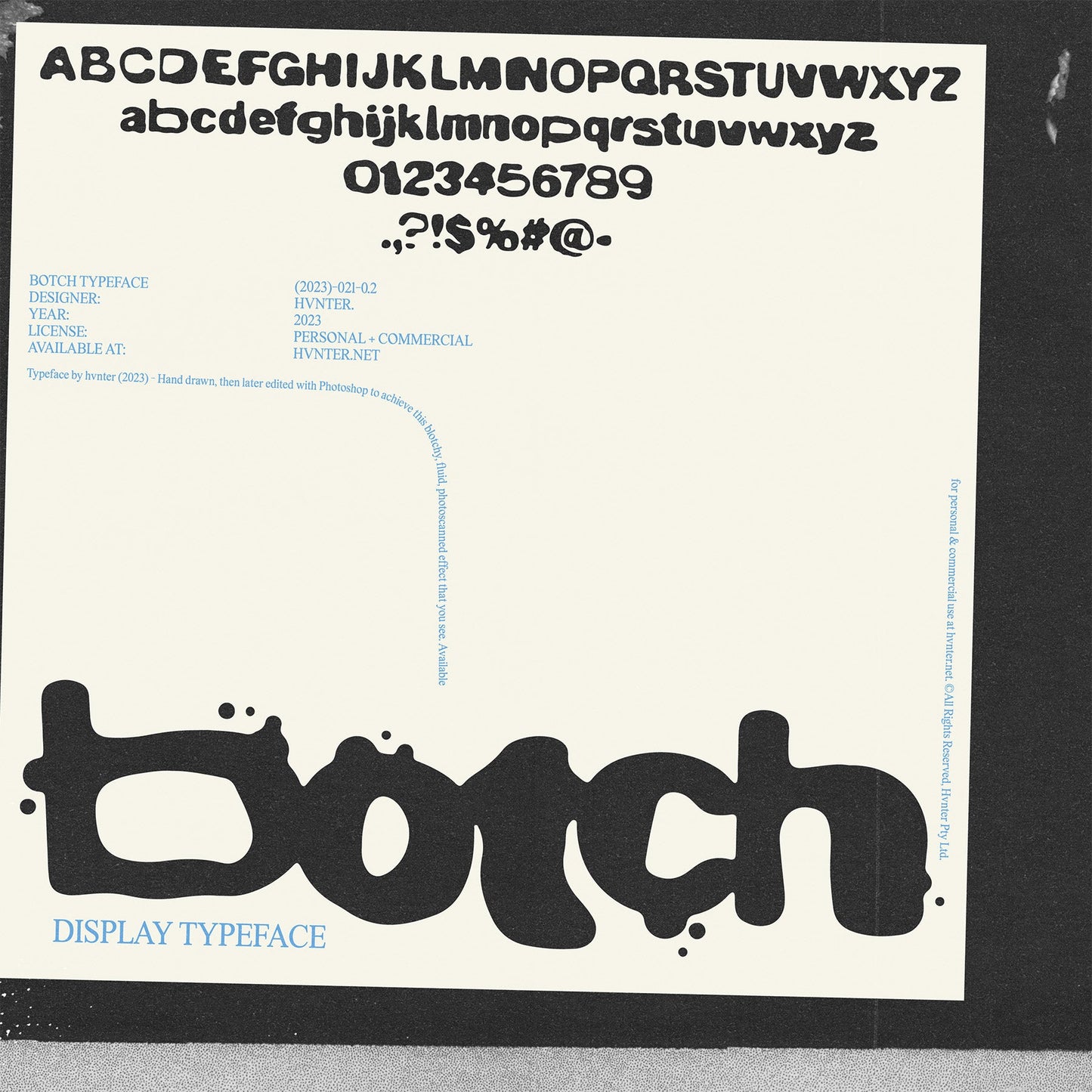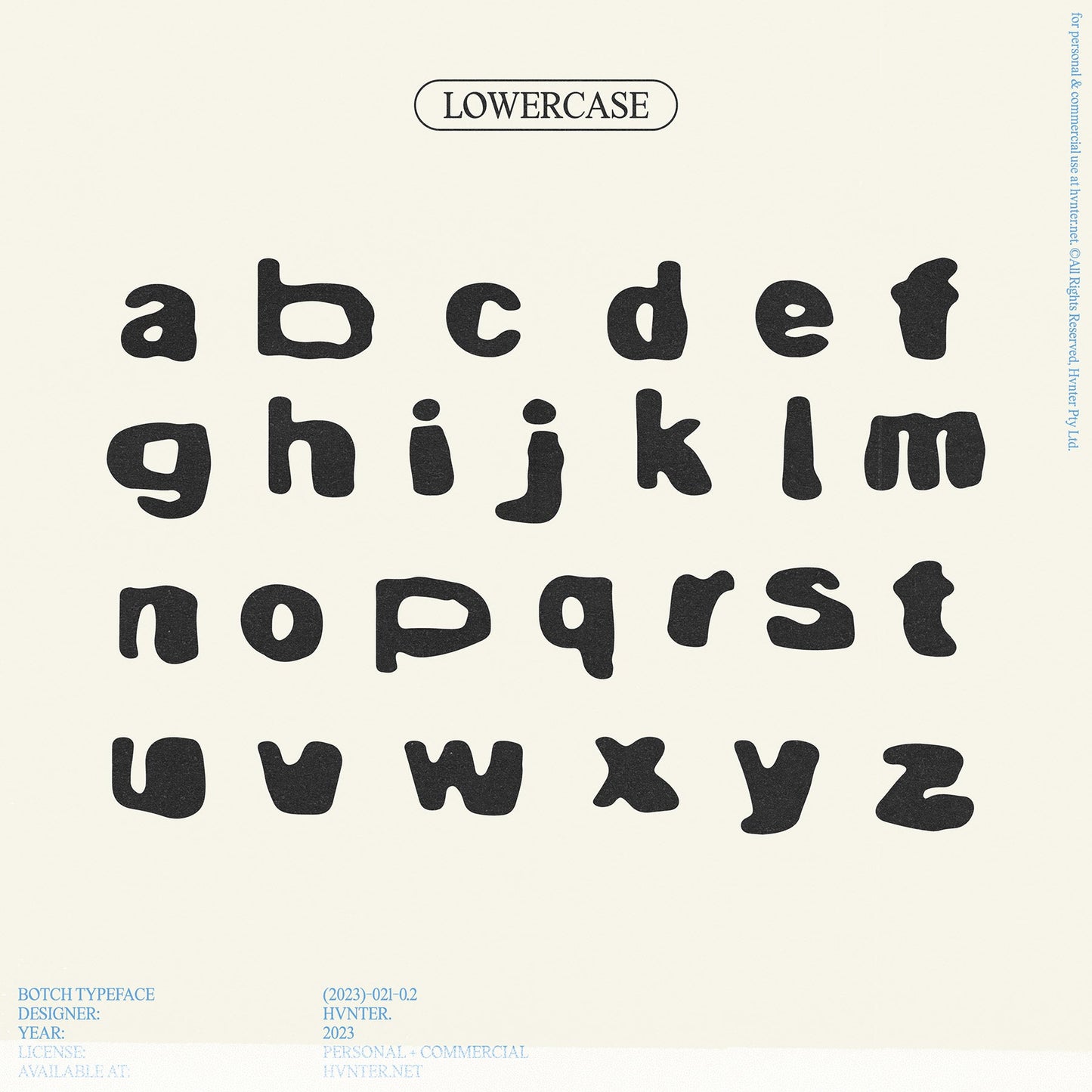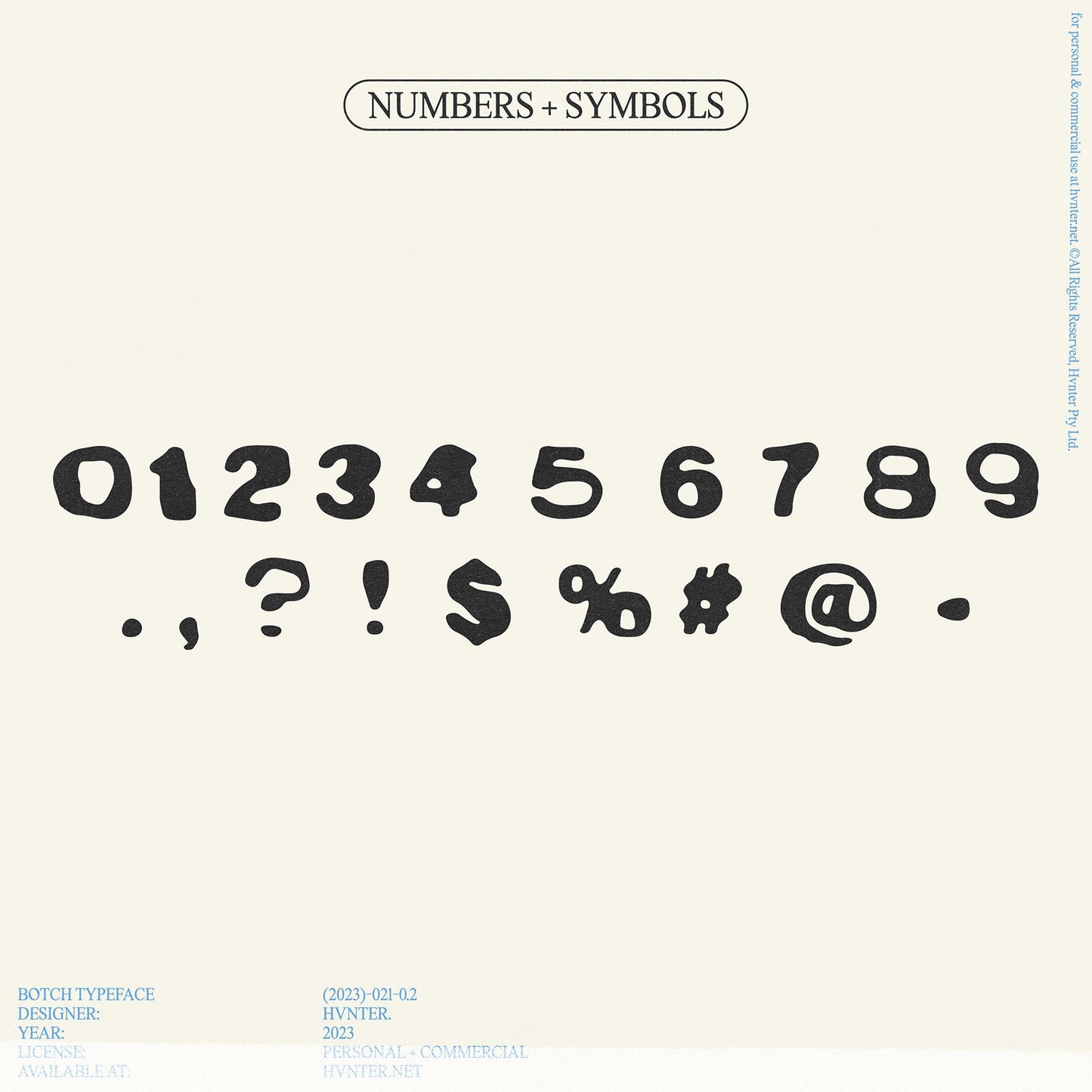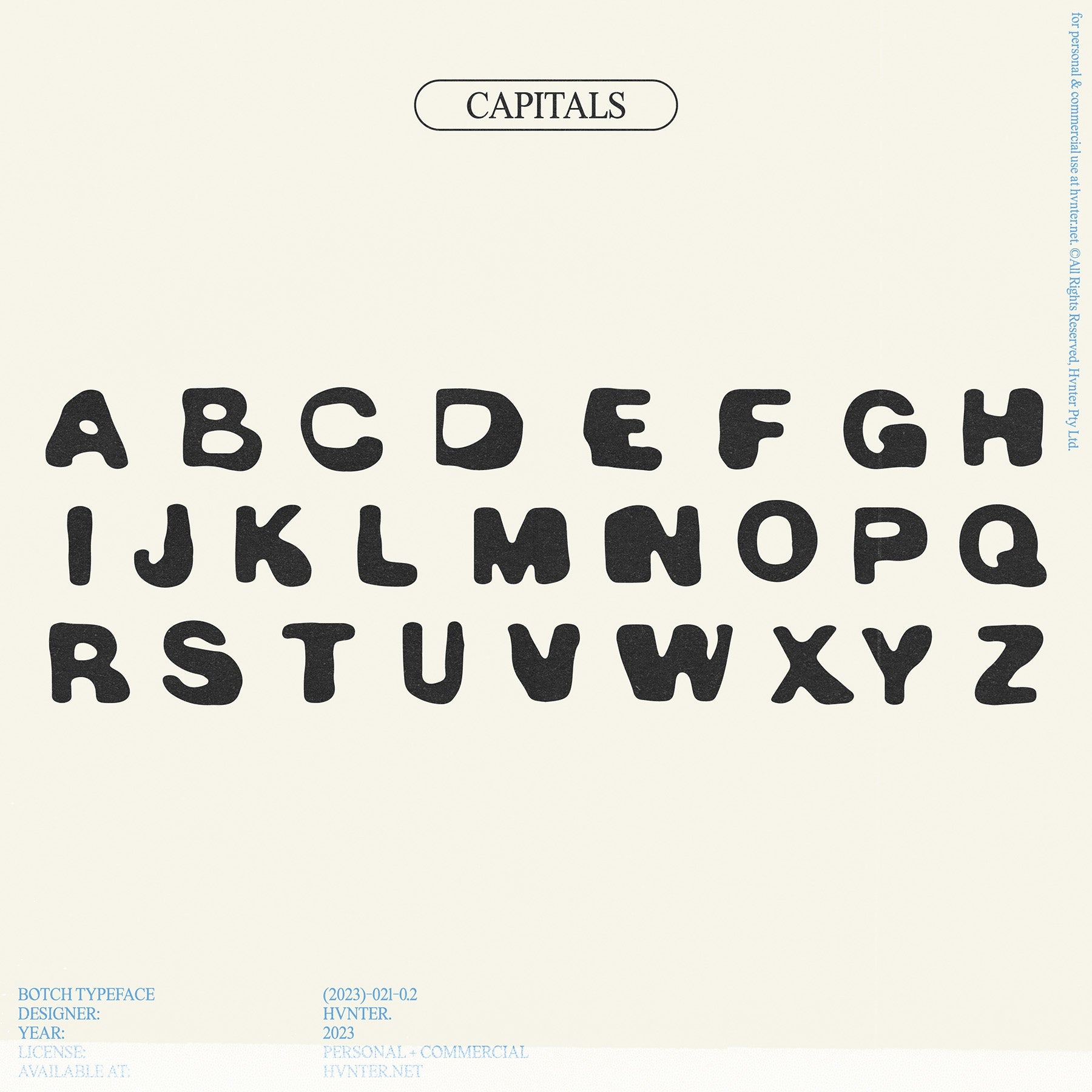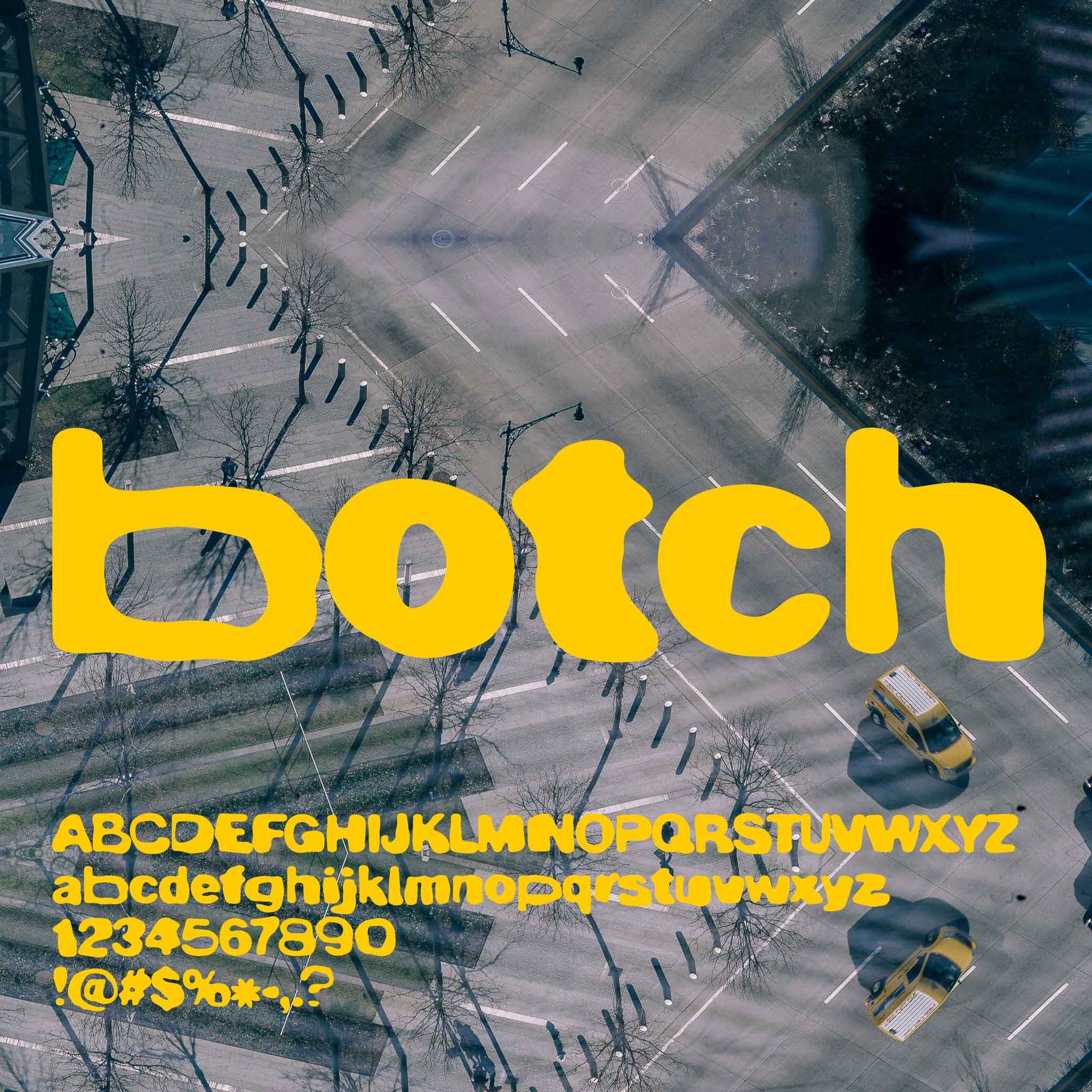
botch typeface
Hand-drawn. Hand-messed. botch is chaos in lowercase.
Designed by HVNTER and dragged through the mud of Photoshop, this font is more than just bubbly — it’s feral. Dripping with analog weirdness, botch looks like your printer glitched mid-print and the ink bled into something better. It’s charmingly imperfect, born in the margins of a DIY zine, scanned like it was found on a lost school scanner from 1997.
Rounded, warped, and unpredictable — each character in botch dances between cute and corrupted. Ideal for punk posters, riso runs, bootleg merch, acid-drenched rave flyers, or anything else that needs a touch of beautiful damage.
Designed by HVNTER, 2023